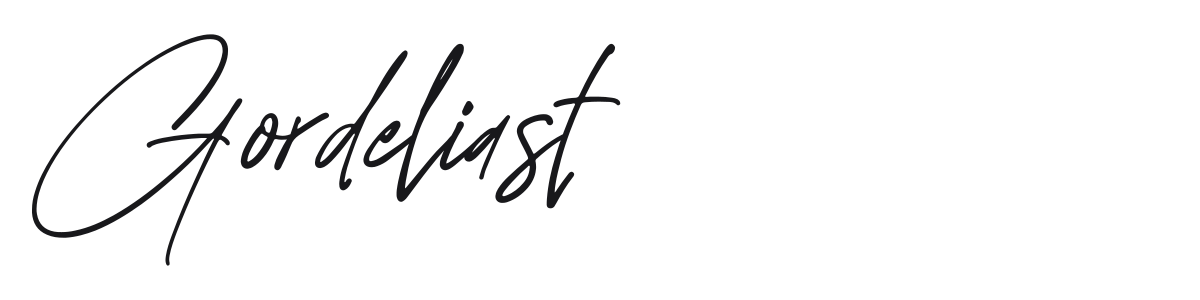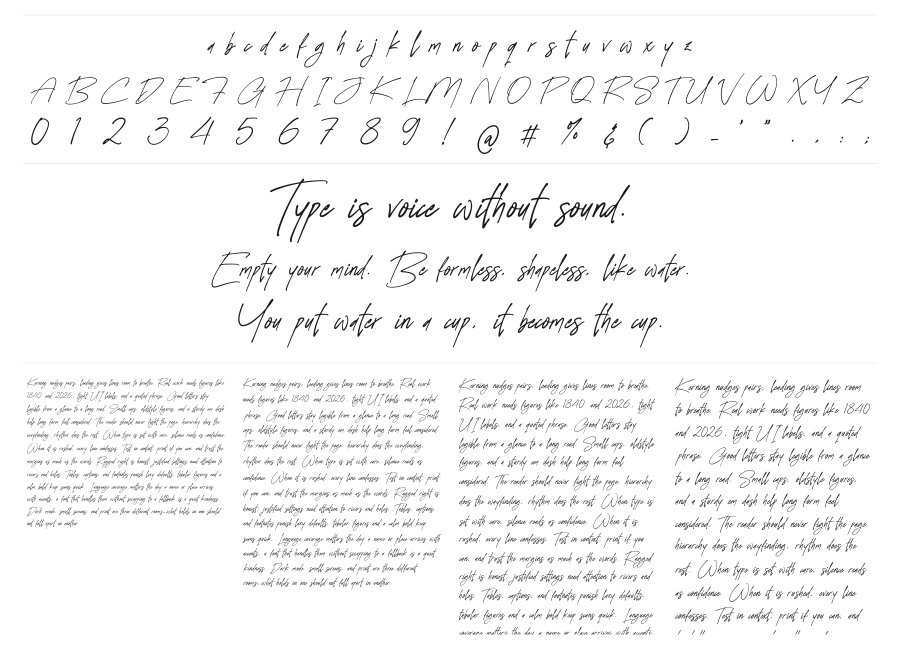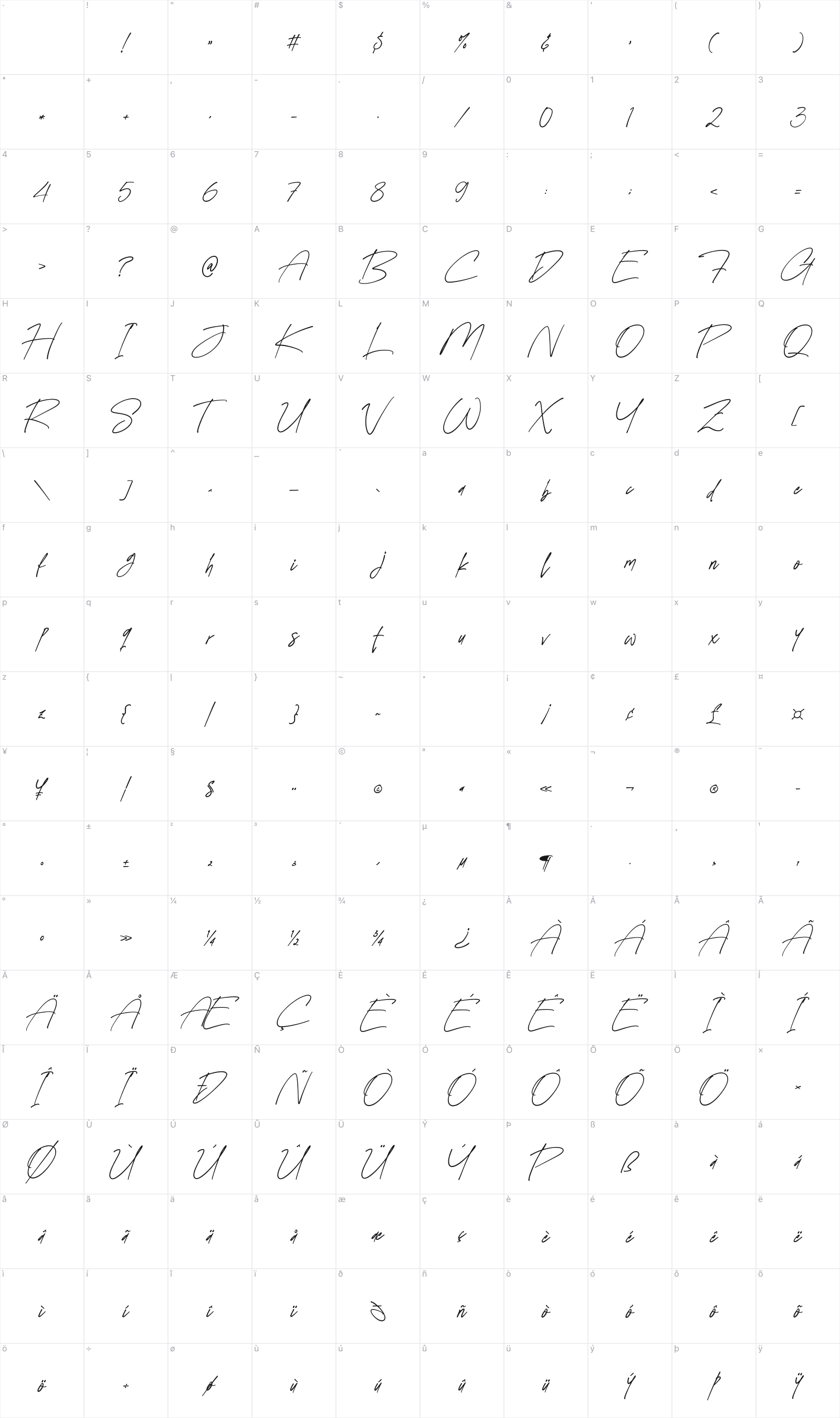
Gordeliast
Gordeliast is a casual handwritten script with thin, freely flowing strokes and a natural signature quality. The loose joins and looping descenders give it an effortless, spontaneous feel that works well for logos, packaging, and lifestyle branding. Light weight and airy spacing keep it from feeling heavy at large sizes.